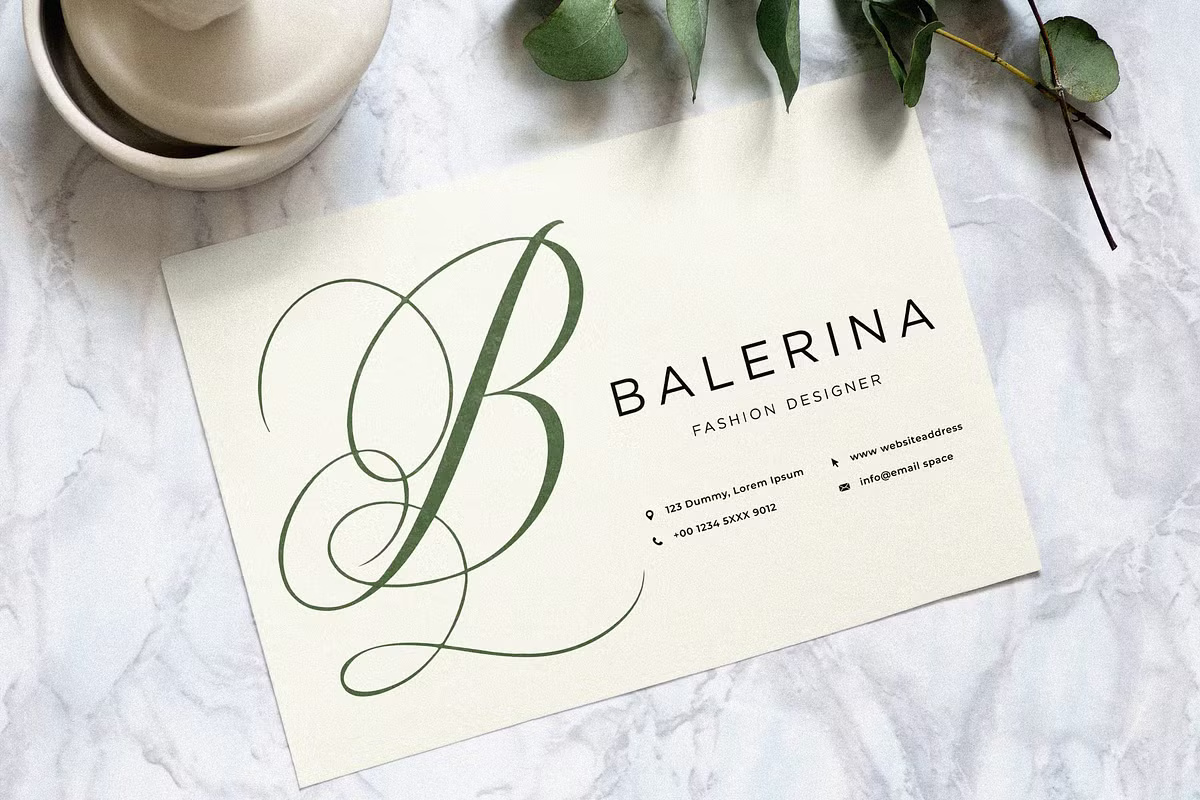
Intrapersonal Font
Interpersonal is a sophisticated calligraphy script font designed by Essentials Studio, perfect for elegant and refined typography. Every element of its design embodies a sense of sophistication, making it ideal for scripts that demand a touch of class.
Revamped for unconventional uses, Interpersonal shines in branding, logo design, and wedding invitations. It also enhances product packaging and adds an elegant touch to any background. With Interpersonal, every word should be crafted with care, embracing the font’s graceful nature.
Experience the unique charm of Interpersonal and let your creativity flourish.
Intrapersonal Calligraphy Script Font